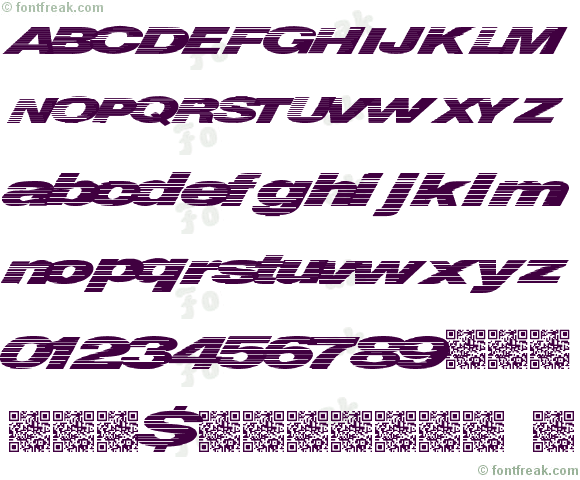
QuickMoney
About QuickMoney
The QuickMoney font by Xerographer Fonts is a striking display typeface that exudes contemporary flair. Released in 2013, this freeware font is characterized by its bold, italicized letterforms that feature dynamic strokes and a unique striped effect, giving it a sense of motion and energy. The visual style is modern and eye-catching, making it an excellent choice for a variety of design projects.
QuickMoney’s stroke weight is consistent yet varied, with pronounced contrasts that enhance its visual appeal. The spacing between letters is well-balanced, ensuring readability while maintaining a lively aesthetic. Decorative elements are minimal, allowing the font's inherent characteristics to shine without unnecessary embellishments. This makes QuickMoney versatile and easy to integrate into different layouts.
This font is particularly well-suited for use in promotional materials such as event flyers, social media graphics, and advertising campaigns. Its bold presence makes it an ideal choice for movie posters or product packaging where capturing attention is essential. Additionally, QuickMoney can enhance the visual impact of restaurant menus or branding for small businesses looking to convey a modern and energetic vibe.
Targeting graphic designers, small business owners, and content creators, QuickMoney is a go-to option for those seeking a font that stands out without overshadowing the message. Its free download option makes it accessible for anyone looking to elevate their design projects without breaking the bank.
In a world where first impressions are crucial, the QuickMoney font stands out with its unique aesthetic and versatility. Whether used in digital or print projects, it brings a sense of freshness and excitement, making it a valuable addition to any designer's toolkit. Don't miss the opportunity to enhance your creative work with the QuickMoney font free download.